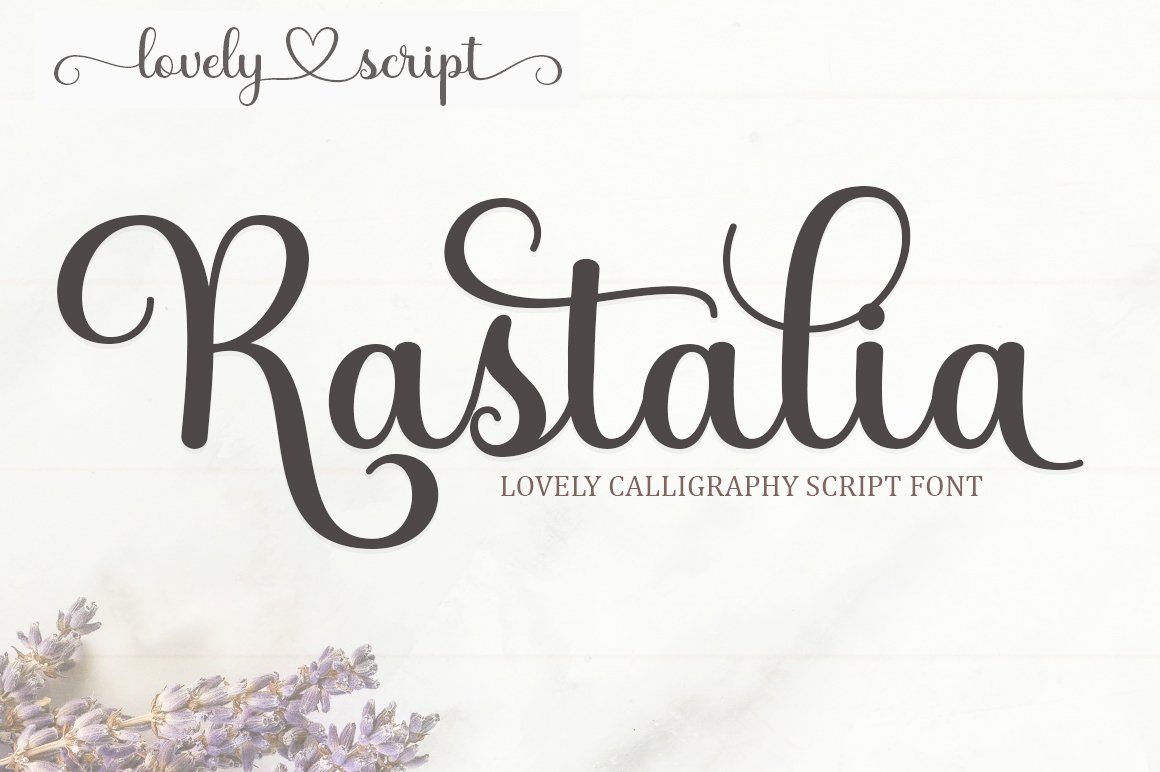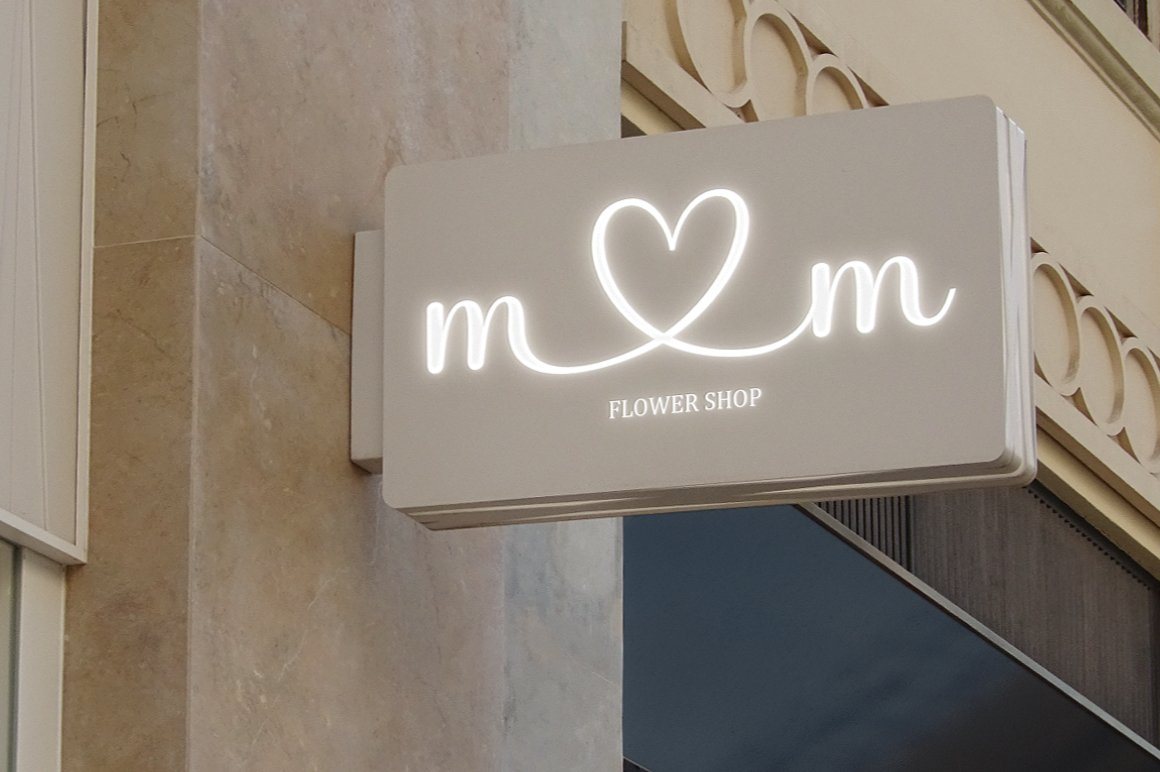
About Rastalia
Hi everyone, I would like to introduce my newest font. Rastalia Script is a beautiful modern calligraphy typeface, I hope you will be interested in this font, if you want to use it for your work. This font can be used easily and simply because there are many features in it. contains a complete set of uppercase and lowercase letters, a wide variety of punctuation marks, numbers, and multilingual support. fonts also contain a lot ligatures and many others contain alternative Style Sets like the heart swash alternative. You can see an example in the image above. What is included: . Rastalia Script OTF . Rastalia Script TTF Rastalia Script is perfect for today’s growing market designs, this font has a stylish, trendy, natural and soft font, with this font you can take advantage of every moment is a great way to highlight the celebration. from the best, because this font will be a support for that purpose such as wedding invitations, branding, parties, graduations, birthdays, gatherings, etc.